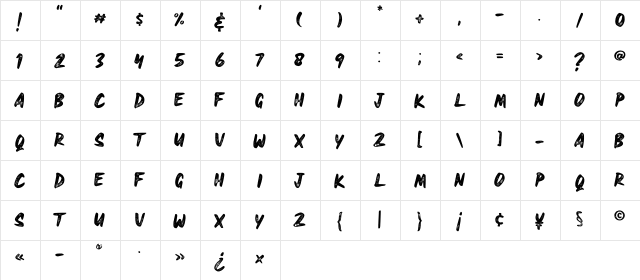
HEAVYRUST ROUGH Regular
Design Context for HEAVYRUST ROUGH Typeface
HEAVYRUST ROUGH embraces imperfection — its rough, textured character adds raw authenticity to designs that want to feel lived-in and unconventional.
A strong fit for alternative music projects, graffiti-adjacent design, and anything that deliberately resists polish.
Pro Tip: Use HEAVYRUST ROUGH at larger sizes where the texture and irregularity of each letterform can be clearly seen — it loses its character at small sizes.